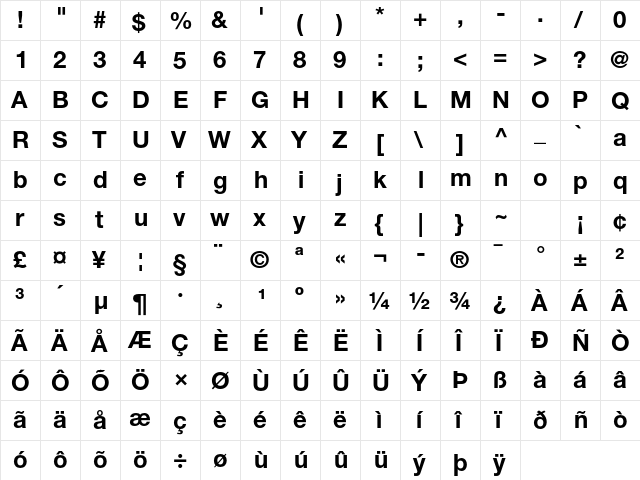
Helvetica Neue LT Std 75 Bold
| Designer | Linotype Staff |
Design Context for Helvetica Neue LT Std Typeface
Helvetica Neue LT Std is a composed and adaptable typeface that performs quietly and consistently across a wide range of design contexts. The heavy weight commands attention and anchors typographic hierarchies.